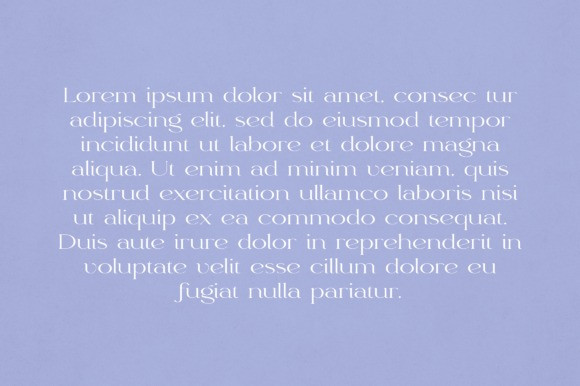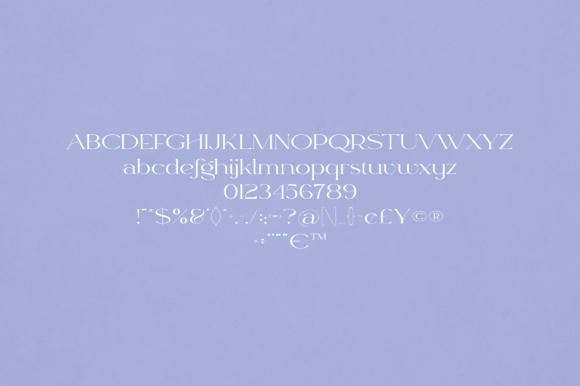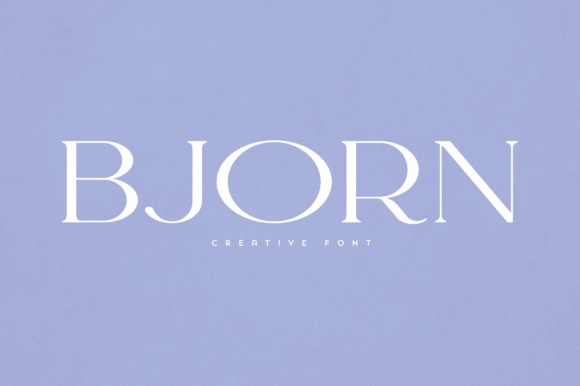
Bjorn Font
Bjorn Font is an elegant and versatile font that will make your typography truly unique! It will enchant every logo, branding, headline, or plain text!